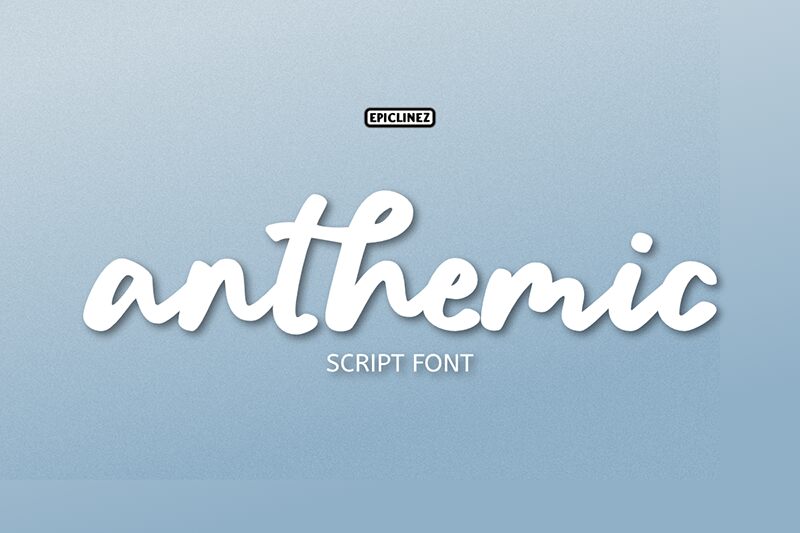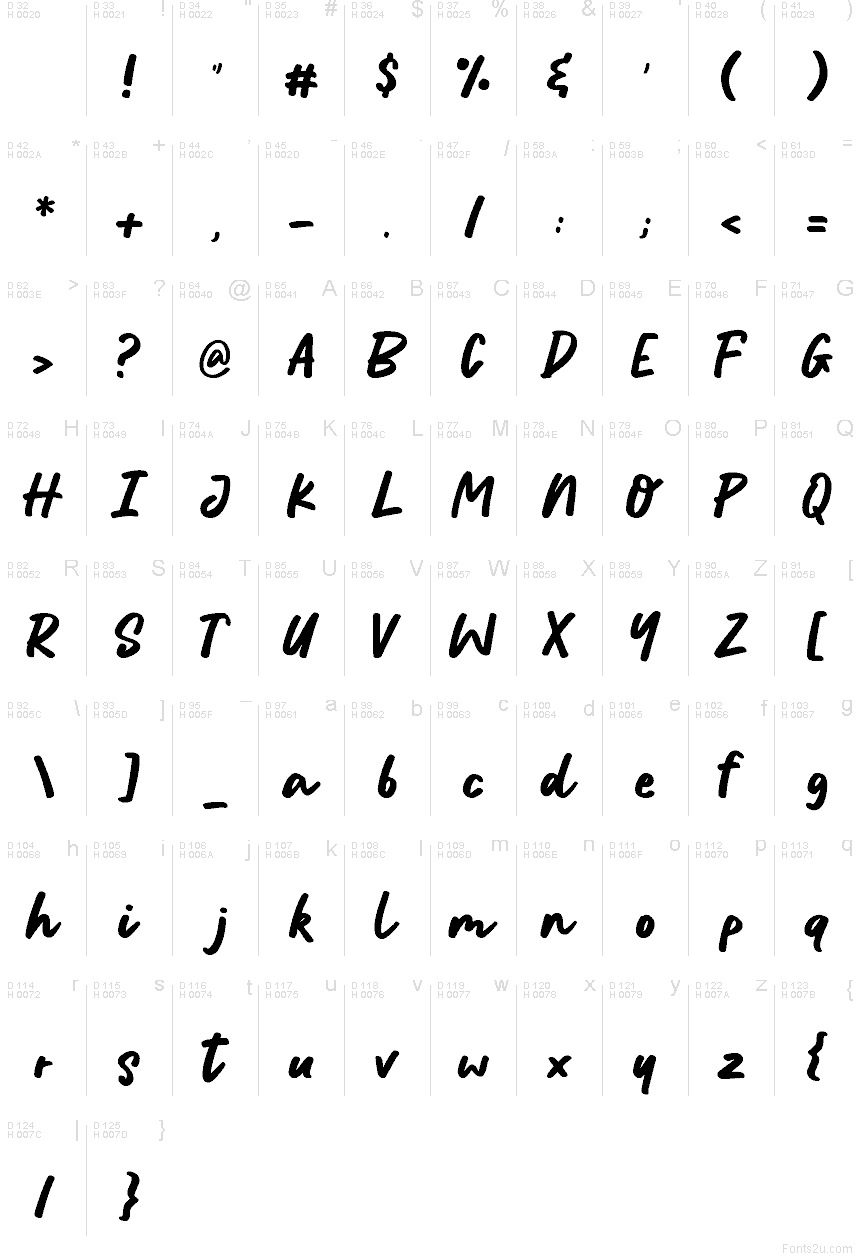
Anthemic font by Epiclinez is a free handwritten font that gives you the bold energy of a marker pen without sacrificing clarity. Its smooth, connected strokes and thick, inky texture feel spontaneous, yet the letters stay open and easy to read even at smaller sizes. The result is handwriting that looks genuinely human-confident, a little rough at the edges, and ready to shout your message without getting messy.
Using Anthemic, this free font shines on social media graphics, product packaging, bold logos, posters, t-shirt designs, handwritten quotes, and event titles. The rhythm between letters feels natural, so words flow together like a quick, passionate note rather than stiff lettering. Try pairing Anthemic with a clean sans serif for body copy and keep Anthemic large and airy, letting those chunky strokes breathe.